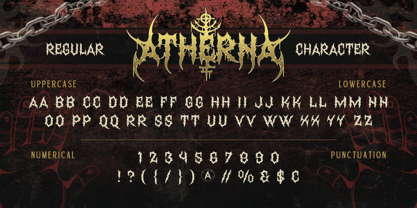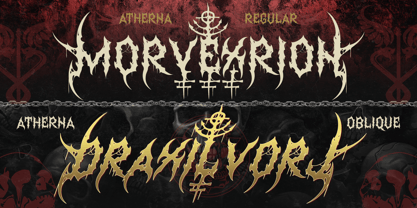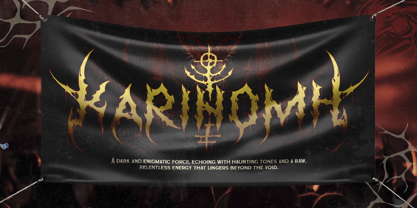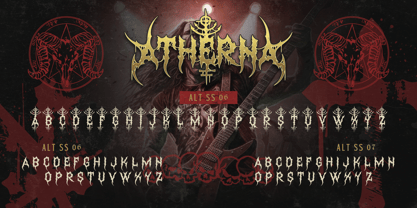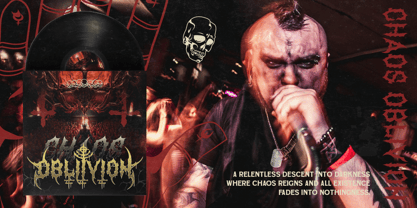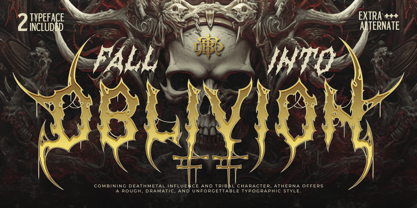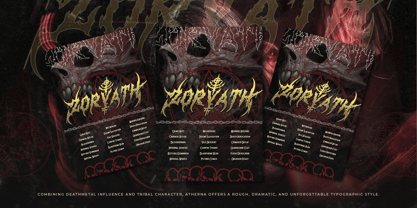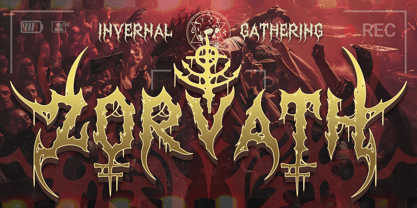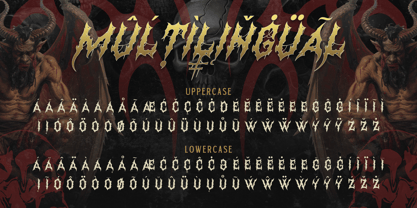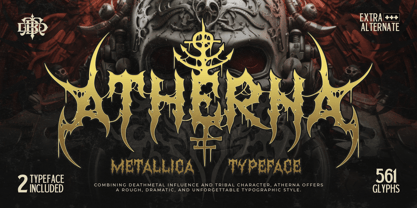
Atherna
by Burntilldead
The Atherna Font Family was designed by Eric Kurniawan and published by Burntilldead. Atherna contains 2 styles and family package options. More about this family
Born from chaos and forged in darkness, Atherna is a brutal death metal typeface that captures the raw energy of extreme music and underground culture. Every letter feels like it’s carved with rage sharp, twisted, and unpredictable, blending death metal aesthetics with tribal influences to create a look that’s both savage and hypnotic. This font doesn’t try to be clean or perfect. Instead, it embraces distortion, aggression, and noise, making it the perfect choice for designs that demand attention and attitude. From band logos and album artwork to gig posters and dark branding, Atherna brings a powerful visual identity that feels loud, heavy, and unapologetically bold. Perfect For: death Metal / black metal band logos, album covers & merchandise, music posters & event flyers, orror & gothic visual projects, streetwear & edgy branding
Designers: Eric Kurniawan
Foundry: Burntilldead